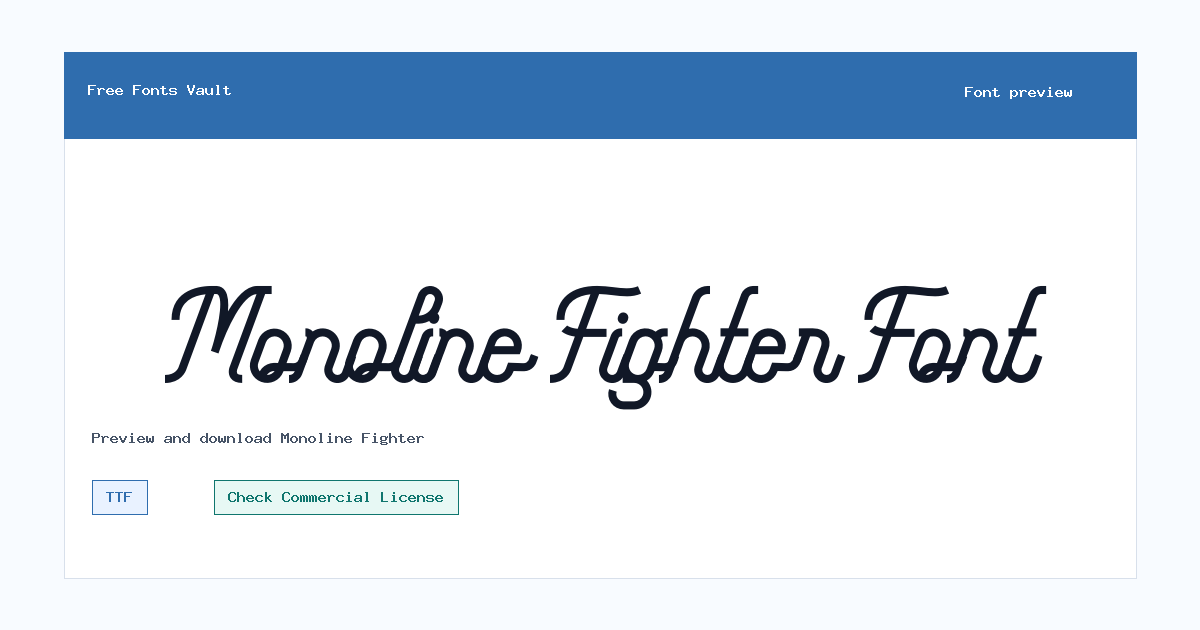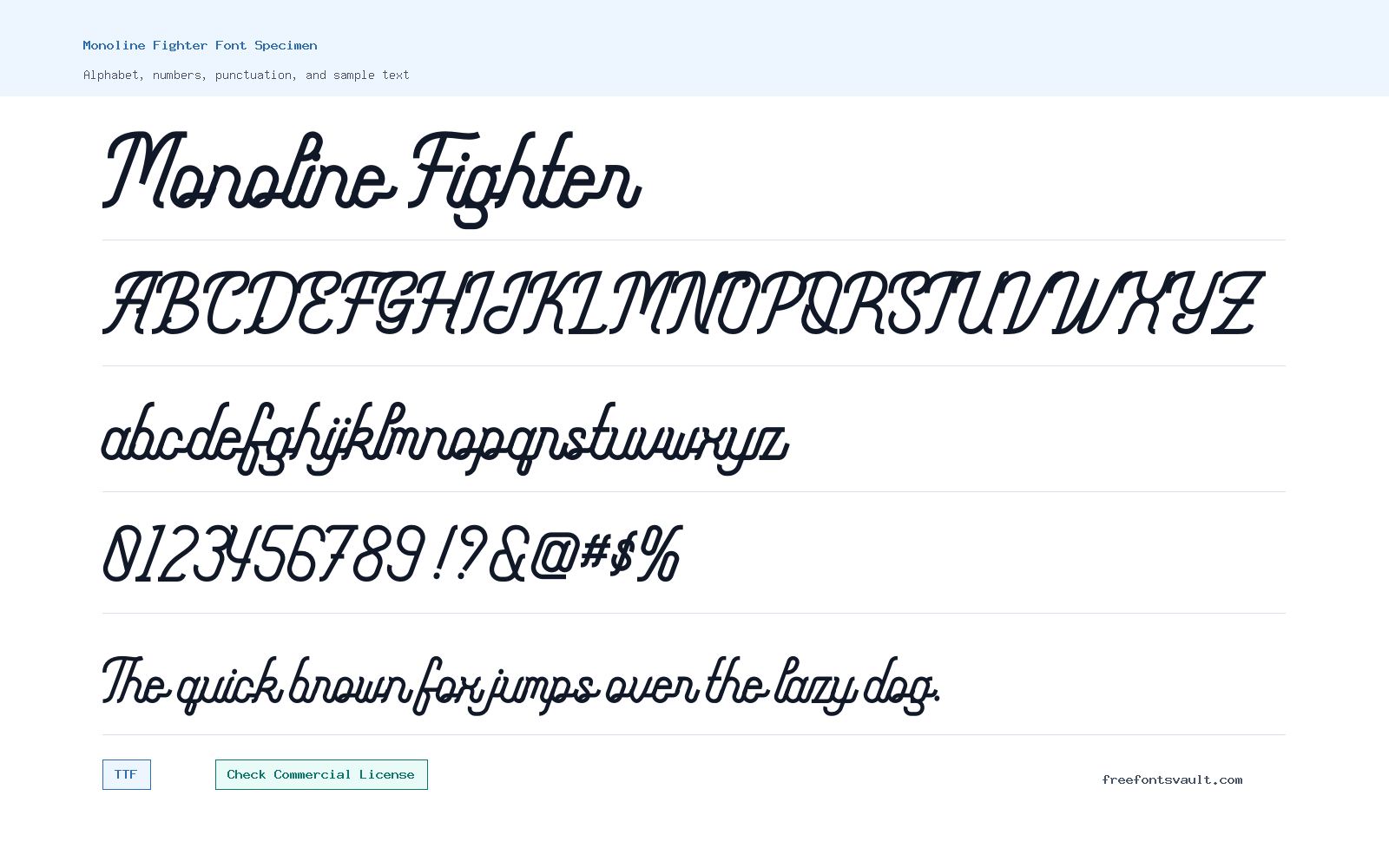
Monoline Fighter
Monoline Fighter font preview showing the family name
Monoline Fighter Font
Monoline Fighter font specimen showing alphabet, numbers, and sample text
Monoline Fighter font.
Monoline Fighter is a regular TrueType font by Donis Miftahudin. It is a good choice to test when you need a clean single-style font for headings, nameplates, posters, and other short display text.
About Monoline Fighter
For best results, test it with short titles, brand-style text, badges, social graphics, packaging mockups, and poster lines. Pay close attention to spacing, punctuation, numbers, and all-caps words, especially if your design needs to stay readable at small sizes. If you need long paragraphs or UI text, pair it with a plain sans serif or serif font that can handle smaller reading sizes.
Monoline Fighter is best judged through the preview because monoline display fonts depend heavily on scale. At larger sizes the even stroke can feel clean and graphic; at smaller sizes, decorative details or tight spacing may need adjustment.
• Single-weight family for straightforward headline and display testing
• Logos, labels, badges, and short brand-style text
• Posters, covers, social graphics, and other display layouts
Who designed Monoline Fighter?
The font is credited to Donis Miftahudin.
What should I use Monoline Fighter for?
Try it for short display text such as logos, headings, labels, posters, covers, and social graphics. Test longer text carefully before using it in body copy.
What kind of projects suit Monoline Fighter?
Use it for short display settings such as badges, social graphics, poster titles, or logo experiments where a single line style is useful.
How should I pair Monoline Fighter?
Pair it with a calm sans serif for descriptions, prices, captions, or any text that needs quick reading.